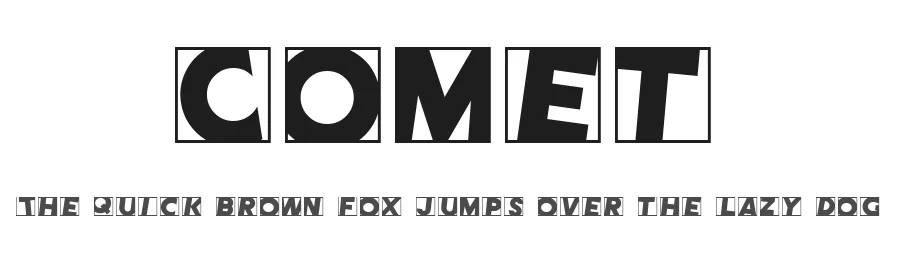
About Qweckle Font
Qweckle is a decorative font designed by C W. It includes 95 glyphs, a regular weight, TTF (TrueType) format, and 107 languages. Qweckle is free to download; check the license details on this page before commercial use. Decorative fonts like Qweckle work best for logos, posters, packaging, and standout headlines.
Qweckle Font is a decorative font that shines as a display or heading face. Pair it with a clean sans-serif or serif font for body text β the contrast creates a clear hierarchy while the two styles stay balanced and easy to read.
Qweckle Font
Qweckle Font is a decorative typeface by C W, ideal for logos, invitations, branding, and creative projects.